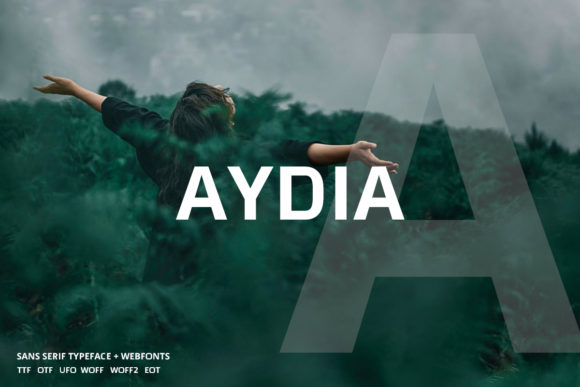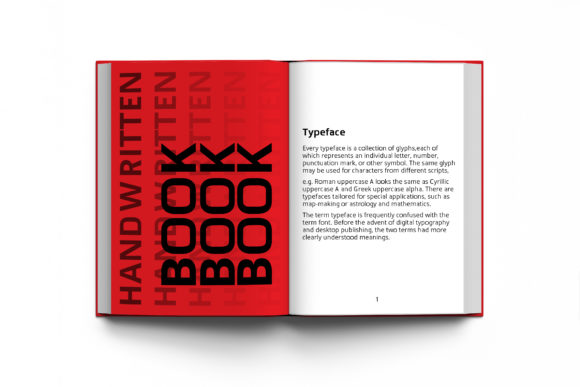
Aydia Font: The Ultimate Sans Serif for Bold and Sophisticated Designs
In the world of typography, a font can make or break a design. A well-crafted font can elevate a brand’s identity, convey its message, and leave a lasting impression on its audience. Aydia Font is one such font that has been making waves in the design community with its bold, yet sophisticated aesthetic. In this article, we’ll dive into the world of Aydia Font, exploring its features, uses, and benefits for designers and crafters.
Aydia Font: A Masterful Sans Serif Design
Aydia Font is a sans serif font that boasts a unique blend of boldness and sophistication. Its chunky and extended characters make it perfect for use in logos, branding, packaging design, and more. The font’s clean lines, precise curves, and carefully crafted details create a truly professional look that’s sure to impress. Whether you’re designing a logo, brochure, or website, Aydia Font is a true must-have in your typography arsenal.
Key Features of Aydia Font
- Bold and Sophisticated Aesthetic: Aydia Font’s bold and extended characters give it a unique and eye-catching appearance that’s perfect for making a statement.
- Chunky and Extended Characters: The font’s chunky and extended characters make it ideal for use in logos, branding, and packaging design.
- Clean Lines and Precise Curves: Aydia Font’s clean lines and precise curves create a smooth and professional look that’s perfect for a wide range of design applications.
- Versatile and Highly Legible: The font is highly legible, even at small sizes, making it perfect for use in body text, headings, and titles.
Uses of Aydia Font
Aydia Font is an incredibly versatile font that can be used in a wide range of design applications, including:
- Logo Design: Aydia Font’s bold and sophisticated aesthetic makes it perfect for use in logos and branding.
- Packaging Design: The font’s chunky and extended characters make it ideal for use in packaging design, including labels, tags, and packaging materials.
- Brochures and Flyers: Aydia Font is perfect for use in brochures, flyers, and other marketing materials where a bold and eye-catching font is needed.
- Web Design: The font’s clean lines and precise curves make it perfect for use in web design, including headings, titles, and body text.
Benefits of Using Aydia Font
So why should you choose Aydia Font for your next design project? Here are just a few benefits of using this amazing font:
- Instant Recognition: Aydia Font’s bold and sophisticated aesthetic makes it perfect for creating instant recognition and brand awareness.
- Professional Look and Feel: The font’s clean lines, precise curves, and carefully crafted details create a truly professional look and feel that’s sure to impress.
- Highly Versatile: Aydia Font is an incredibly versatile font that can be used in a wide range of design applications.
- Easy to Read: The font is highly legible, even at small sizes, making it perfect for use in body text, headings, and titles.
| Font Name | Aydia Font |
| Author | DG_store |
In conclusion, Aydia Font is a true must-have for designers and crafters looking to create bold and sophisticated designs. Its chunky and extended characters, clean lines, and precise curves make it perfect for use in logos, branding, packaging design, and more. With its highly legible and versatile design, Aydia Font is the perfect choice for any design project where a professional look and feel is needed. So why wait? Download Aydia Font today and take your designs to the next level!